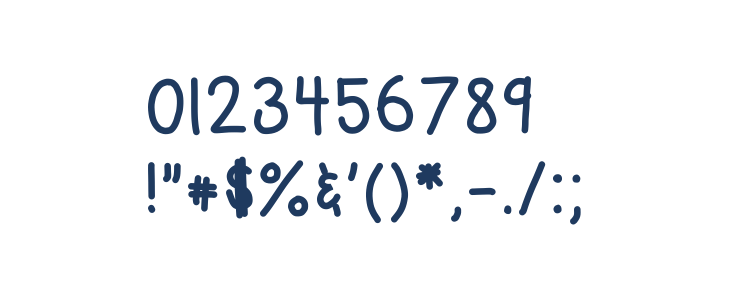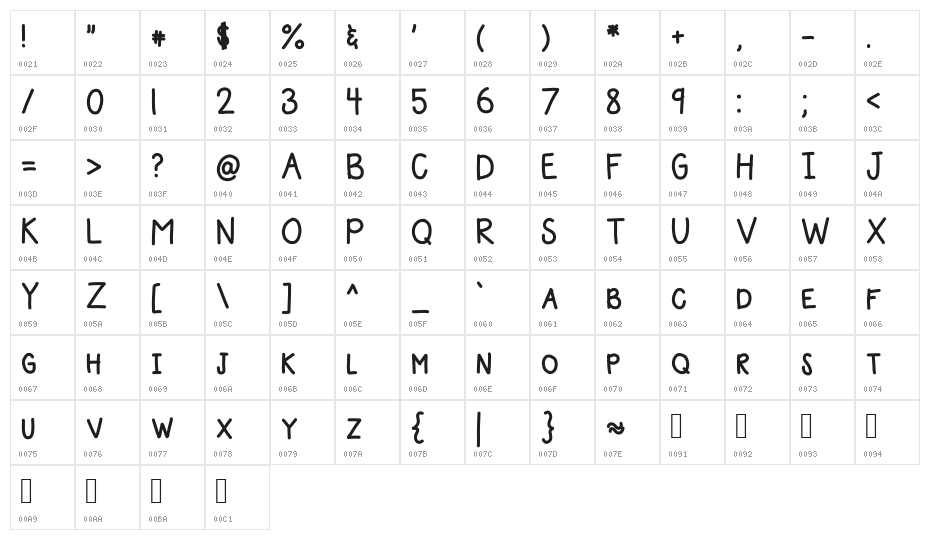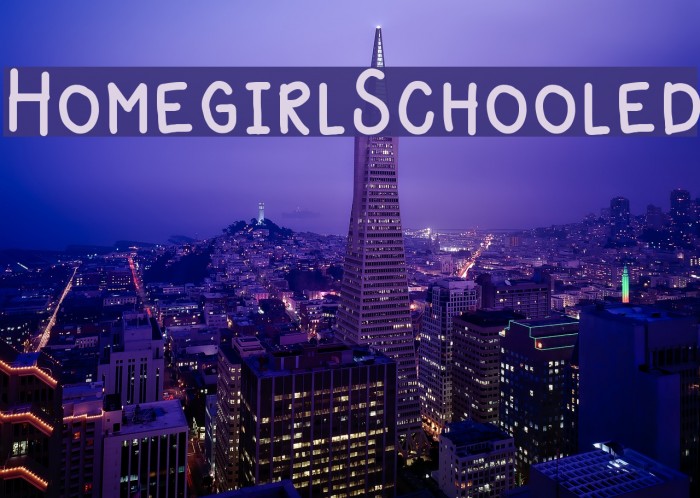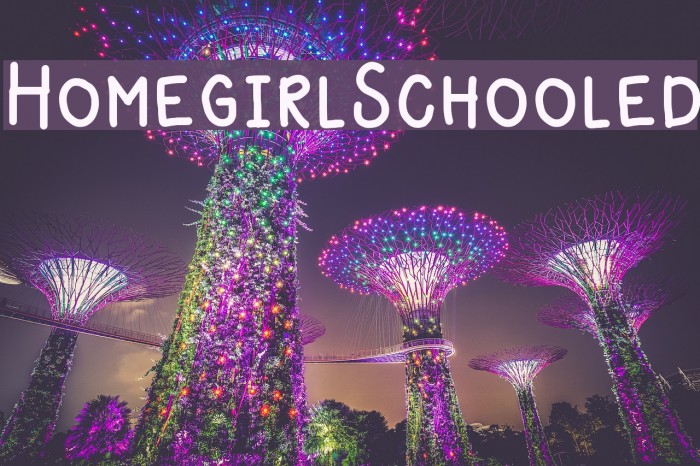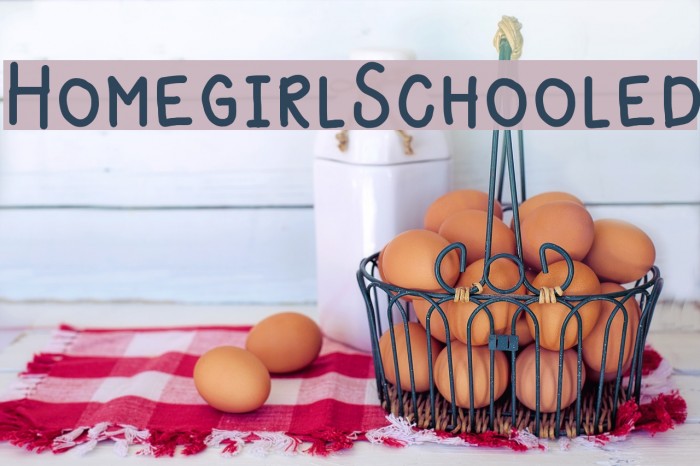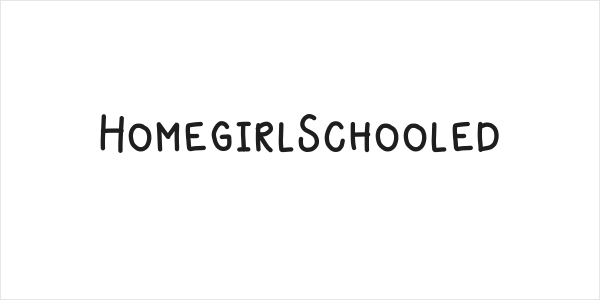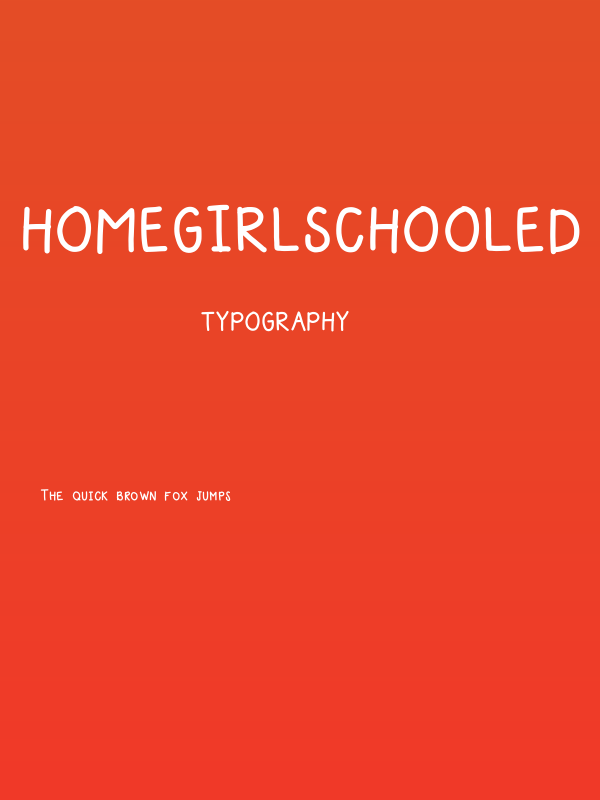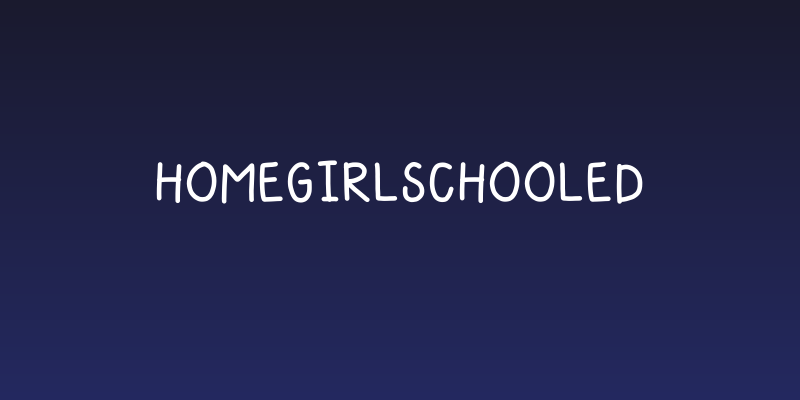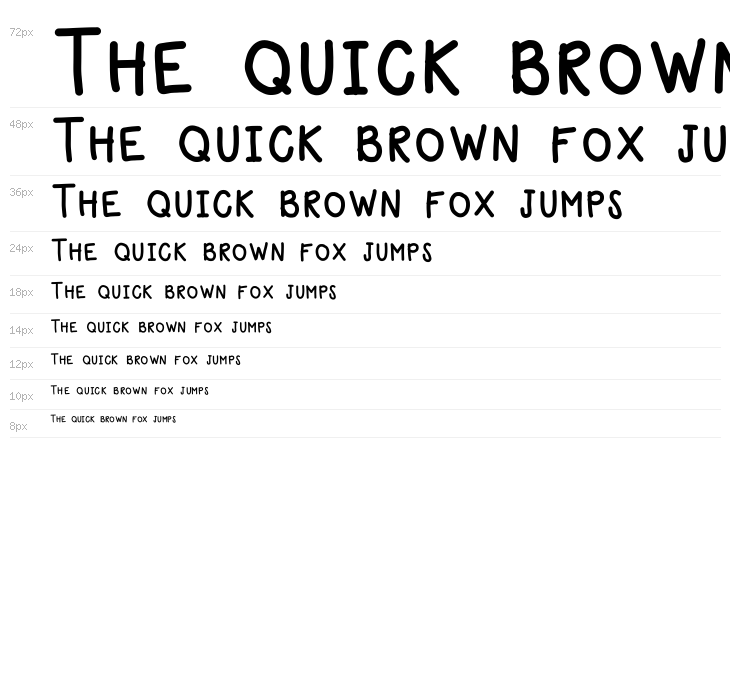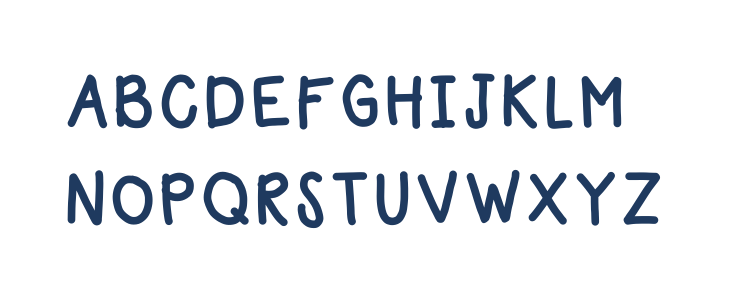
HomegirlSchooled Font
HomegirlSchooled Description
This font features a playful and casual handwritten style, characterized by its rounded and slightly irregular letterforms. The uppercase and lowercase letters maintain a consistent flow, giving it a friendly and approachable appearance. The numbers and special characters are crafted with the same informal touch, making them blend seamlessly with the alphabet. The overall design is simple yet effective, with a focus on readability while maintaining a unique personality. This font is ideal for projects that require a personal and informal tone, such as invitations, greeting cards, or playful branding.
| Use Case | Headlines, Logos, Informal text |
| Proposed Projects | Ideal for invitations, greeting cards, playful branding, and informal communications. |